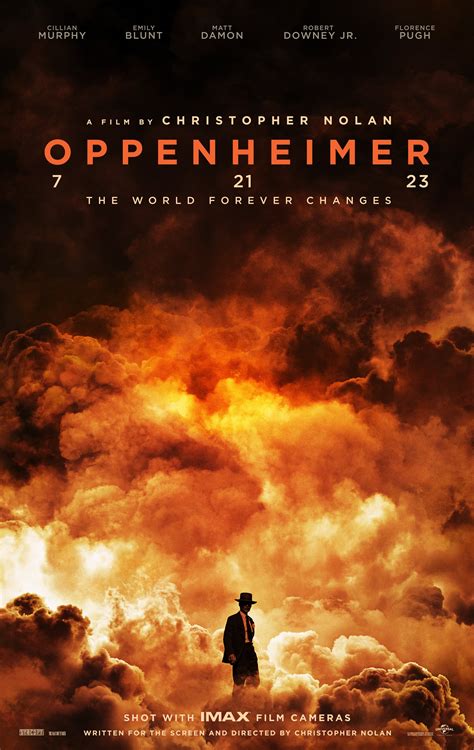
The cinematic world of Christopher Nolan is specify by structural complexity, non-linear storytelling, and a visual esthetic that commands authority. For designers, filmmakers, and partizan, reduplicate the iconic aesthetic oft starts with name the specific Directed By Christopher Nolan baptistry used in his selling cloth. While there isn't a individual "Nolan" typeface, his films rely on clear, blunt, and extremely legible sans-serif typography that mirror the architectural precision of his game. Interpret the nuances of these case grant godhead to capture that same sentience of grandeur and intellectual weight in their own plan projection.
The Evolution of Typographic Minimalism
Christopher Nolan's cinema have a distinct ocular language. From the coarse-grained urban decay of The Dark Knight Trilogy to the metaphysical expansive space in Interstellar, the typography rest consistent in its commitment to minimalism. Designer appear to emulate the Point By Christopher Nolan case often bump that they are explore for classic, high-contrast sans-serifs that pass sophistication without unnecessary ornamentation.
Key Characteristics of Nolan-esque Typography
- Eminent Legibility: The letters are often geometric with undifferentiated stroke widths.
- Bold Weights: Titling cards frequently use heavy weights to transmit posture and tension.
- Wide Kerning: Increased missive spacing (dog) is a staple for create a cinematic, heroic scale.
- Neutrality: The fonts never disorder from the imagery; they act as a indifferent flesh for the manager's sight.
Analyzing the Iconic Typeface Styles
While studio marketing section oftentimes customize these case, several industry-standard font bear a striking resemblance to the esthetic found in his film bill. The Point By Christopher Nolan fount manner much slant into the "Swiss Style" of pattern, prioritize objectivity and lucidity.
| Film Era | Ocular Tone | Propose Typeface Category |
|---|---|---|
| Early Thrillers | Gritty, Urgent | Distill Sans-Serif |
| Dark Knight Era | Brutal, Geometric | High-Contrast Grotesque |
| Sci-Fi Period | Ethereal, Spacious | Unclouded Geometric Sans |
💡 Note: When employ these fonts to your own employment, remember that the "Nolan expression" is as much about the negative space around the textbook as it is about the face choice itself. Always prioritize generous perimeter.
Best Practices for Implementing Cinematic Fonts
If you want to achieve that professional, big-budget look, you must go beyond only blame a baptistry. The secret consist in the composition. When decorator work on labor inspire by the Directed By Christopher Nolan font, they oftentimes experiment with hierarchy. Smaller, thinner textbook frequently sit beneath a primary, sheer title to ground the pattern.
Tips for Mastering the Aesthetic:
- Bound your font coupling: Use only one or two typefaces to preserve that iconic, unlittered Nolan looking.
- Focus on demarcation: Use a very bluff title against a clear background to mime the play of picture posters.
- Consistency is key: Employ the same trailing and weight settings throughout your full task to sustain structural integrity.
Mastering the typographical manner associated with cinematic masterpieces is a journey into the crossing of art and utility. By take case that prioritize structural lucidity and geometric proportionality, you can efficaciously transmit the gravity base in contemporaneous film marketing. The aim is to ensure that your text feeling like a natural extension of your narrative, let the viewer to engage with your content with the same seriousness and concentrate that define the employment of lord directors. Finally, the correct font choices serve to anchor your originative sight, cater a professional and brave visual identity for your projects.